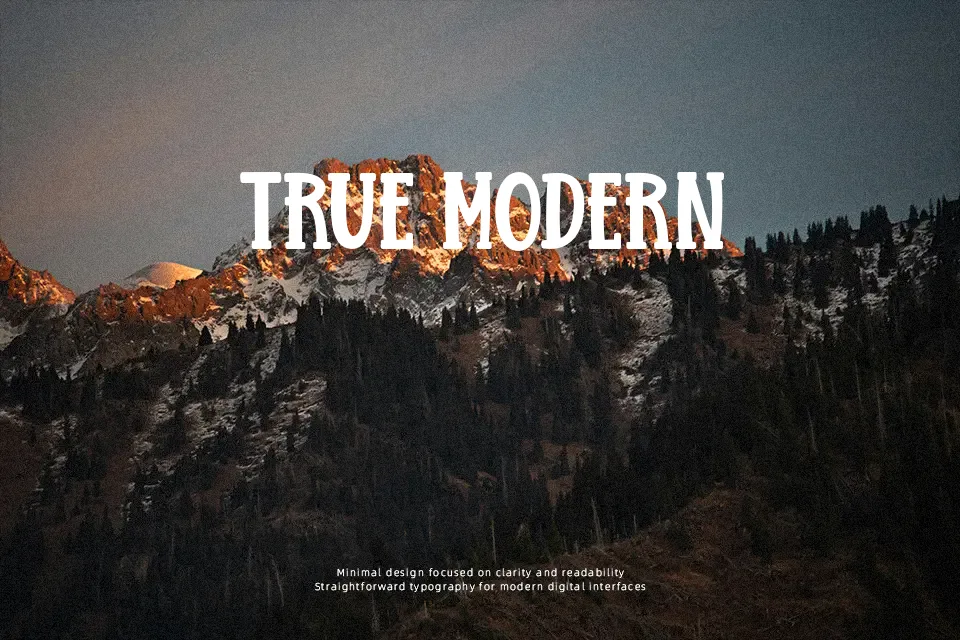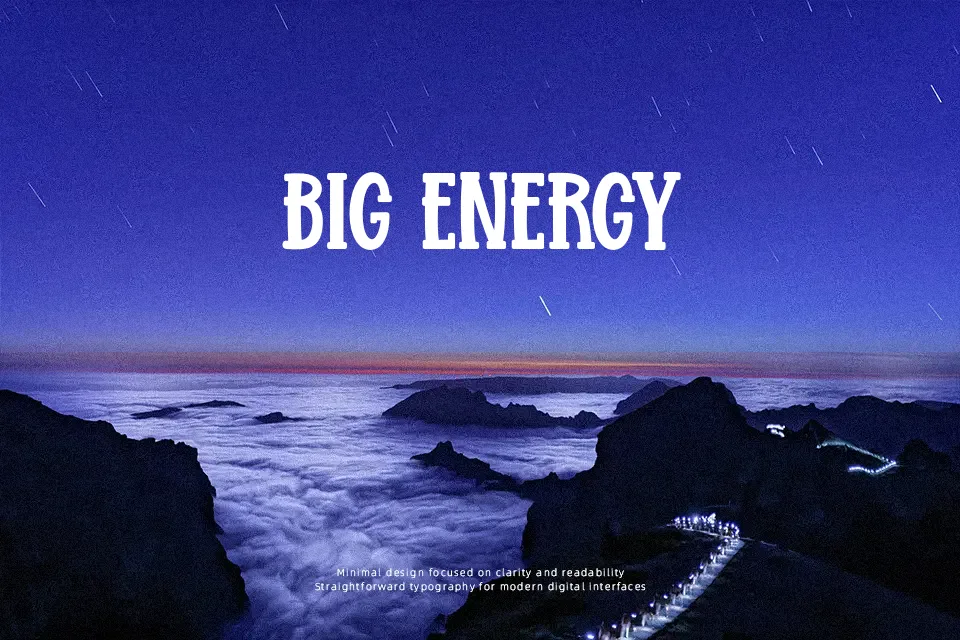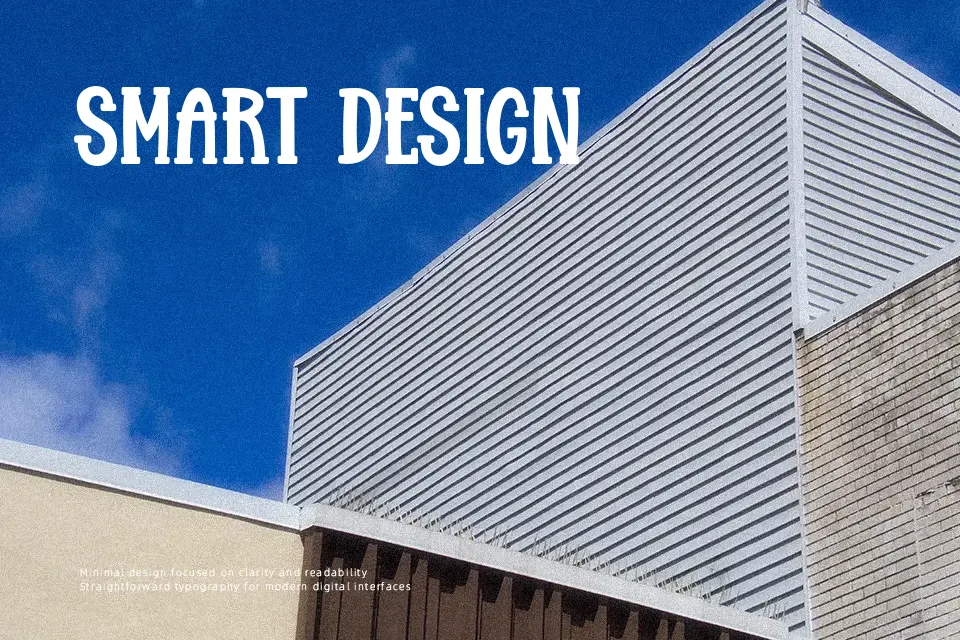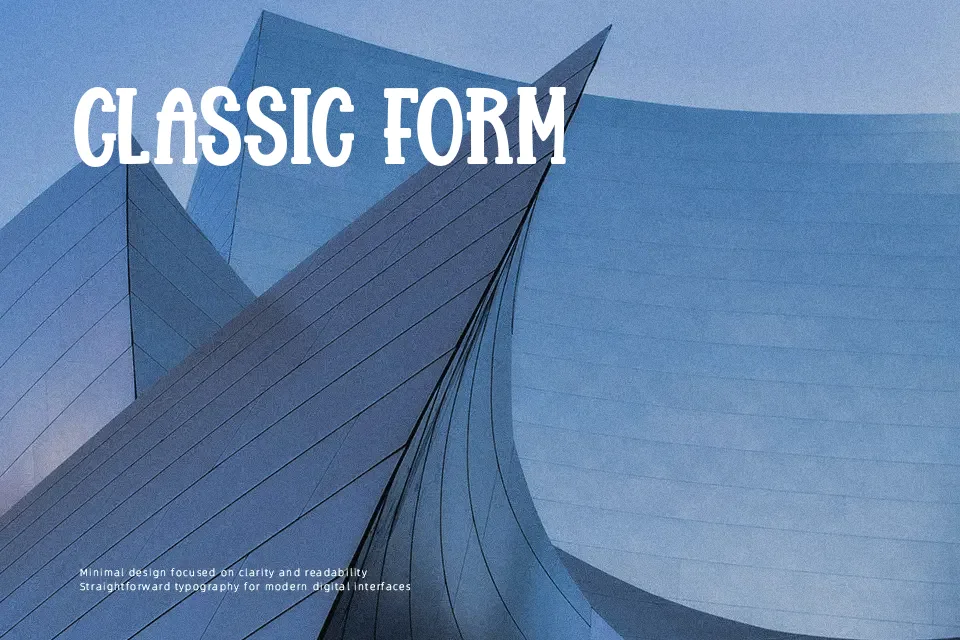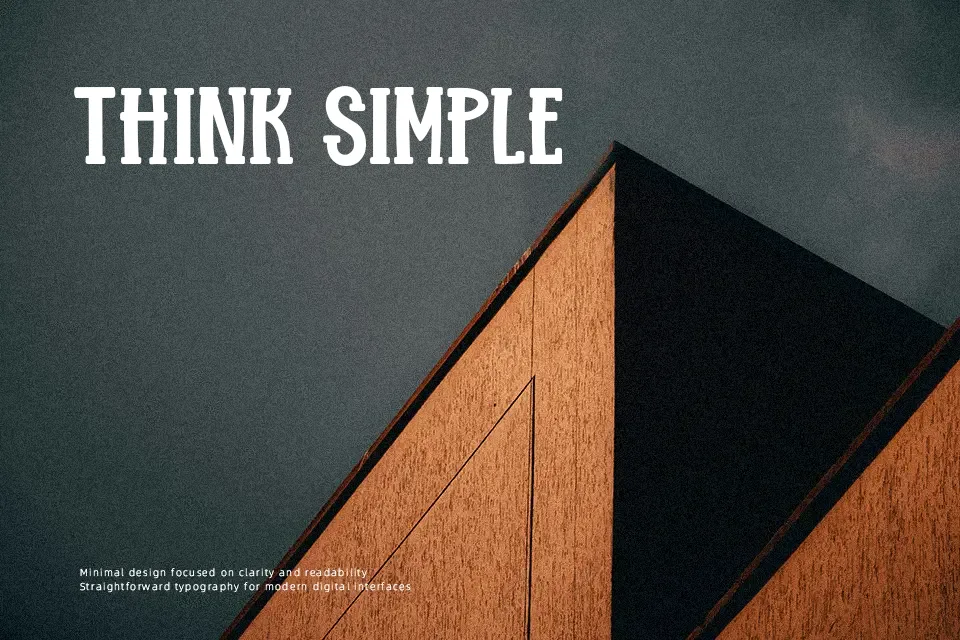
Brosia Font
Designed by Subectype & Orenari
Brosia is a slab serif display font with thick, compact shapes, square slabs, and softly rounded corners that keep it from feeling harsh. Strokes are sturdy with fairly tight spacing, so text quickly turns into solid, impactful blocks rather than airy lines. Visually it reads as casual and approachable, somewhere between a straightforward slab serif and a playful display face. This makes it handy for product labels, poster headlines, restaurant boards, children’s event graphics, and bold logo marks that should feel friendly rather than corporate. It struggles in long paragraphs or tiny UI elements, where the chunky forms and strong slabs can feel heavy and tiring to read. Compared to more serious slab serifs, Brosia leans more fun and decorative, so it works best when you want personality over neutrality.
Bold logo wordmarks and badges
Playful poster titles and event graphics
Packaging for friendly, youth-oriented products
Social media posts that need chunky, readable headlines
Body text or long reading layouts
Serious corporate documents or formal reports
Very small captions, UI labels, or dense data tables
Perfect for branding, logo, and packaging, with a artistic and display style.